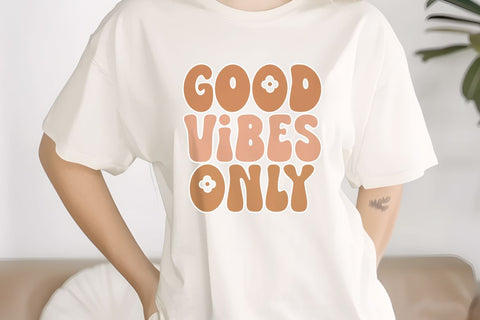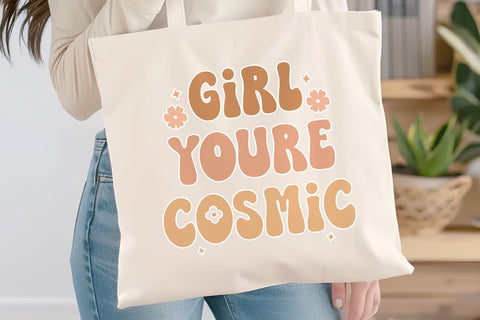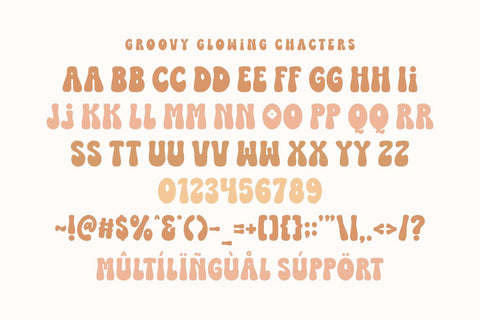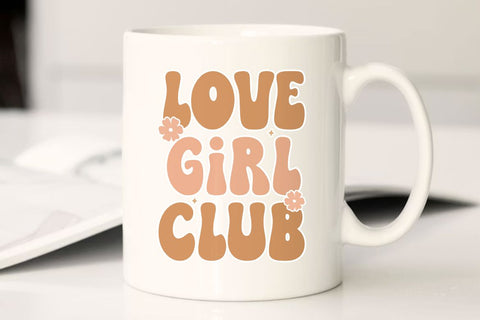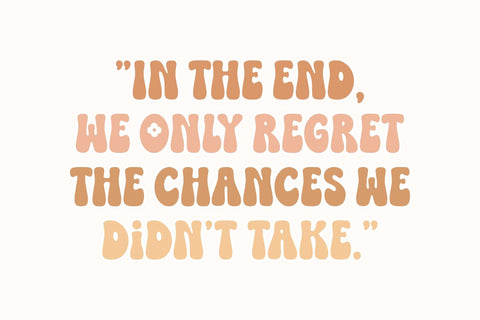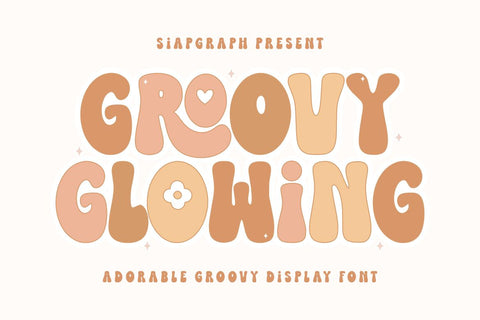
Groovy Glowing - Adorable Groovy Font
Groovy Glowing is an adorable groovy display font that brings a cozy, nostalgic, and stylish touch to your creative projects. With its bold, wavy letterforms and charming retro aesthetic, this typeface is perfect for creating designs that feel both trendy and heartwarming. Its clean, chunky construction is specifically optimized for the crafting community, ensuring a seamless and frustration-free experience for vinyl cutting, sublimation, and high-quality digital printing.
Perfect for: creating high-impact SVG cut files, retro-themed apparel, vinyl stickers, personalized mugs, event branding, nursery wall art, and fashionable social media graphics. Whether you are a professional Print on Demand (POD) seller or working on a special DIY gift, this font provides the bold readability and whimsical personality to make your designs pop.
Great for holiday themes such as Autumn/Fall collections, Boho-style parties, Birthdays, and Thankful celebrations, adding a soft, stylish, and groovy personality to all your seasonal design projects!